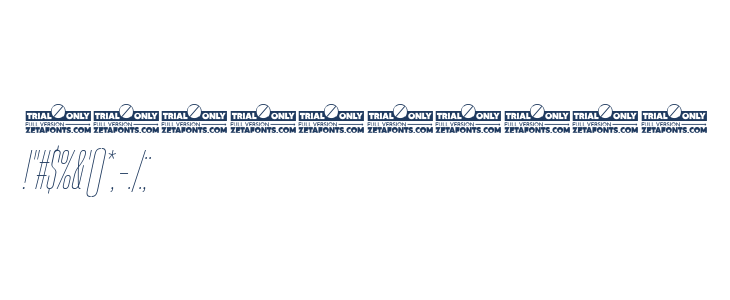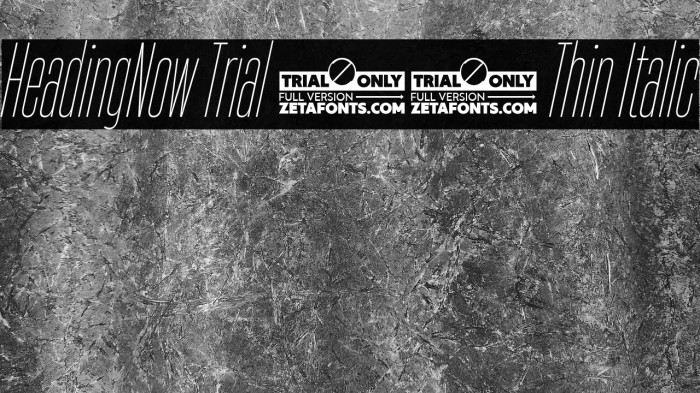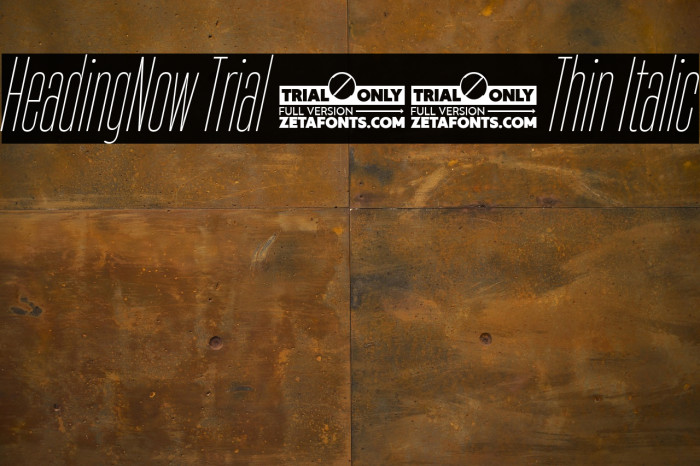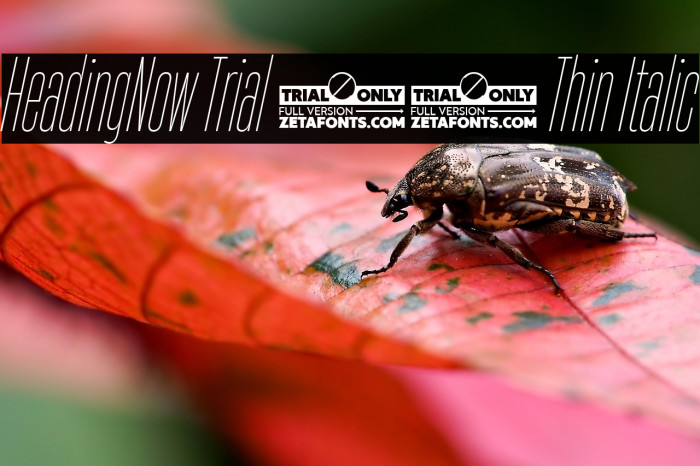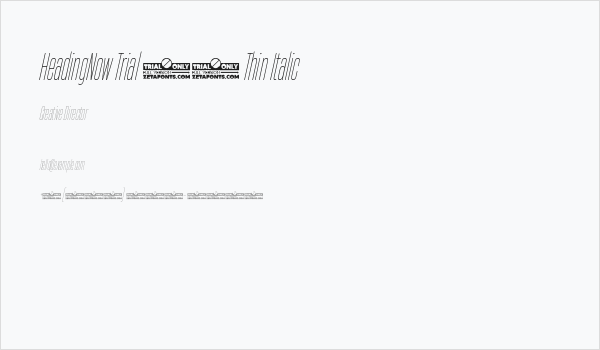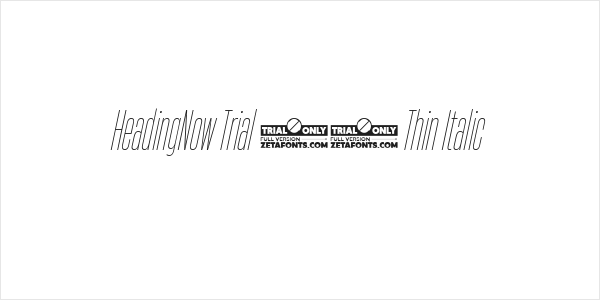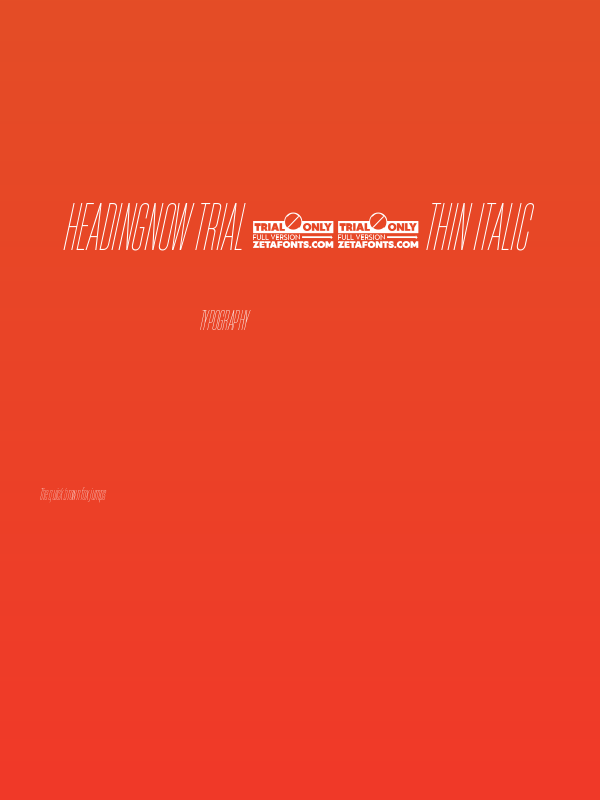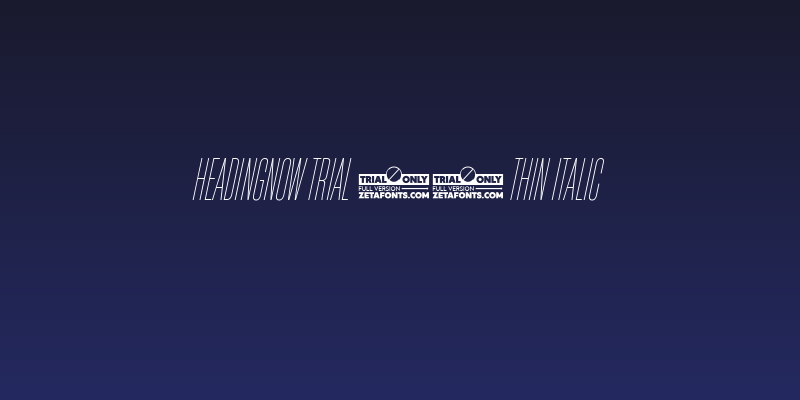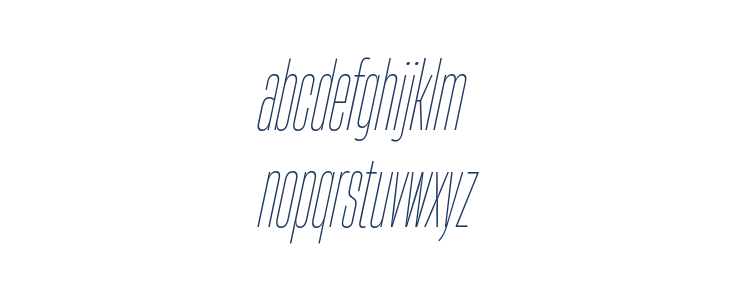
HeadingNow Trial 11 Thin Italic Font
HeadingNow Trial 11 Thin Italic Description
This font features a sleek, elongated design with a distinct italic slant, giving it a dynamic and modern appearance. The thin strokes contribute to a light and airy feel, making it ideal for creating a sophisticated and elegant look. The characters are tall and narrow, enhancing the font's streamlined aesthetic. The spacing between characters is tight, which adds to the cohesive and continuous flow of text. This style is particularly suitable for projects that require a contemporary and stylish touch.
| Proposed Projects | Ideal for fashion magazines, luxury brand logos, modern website headers, and elegant invitations. |